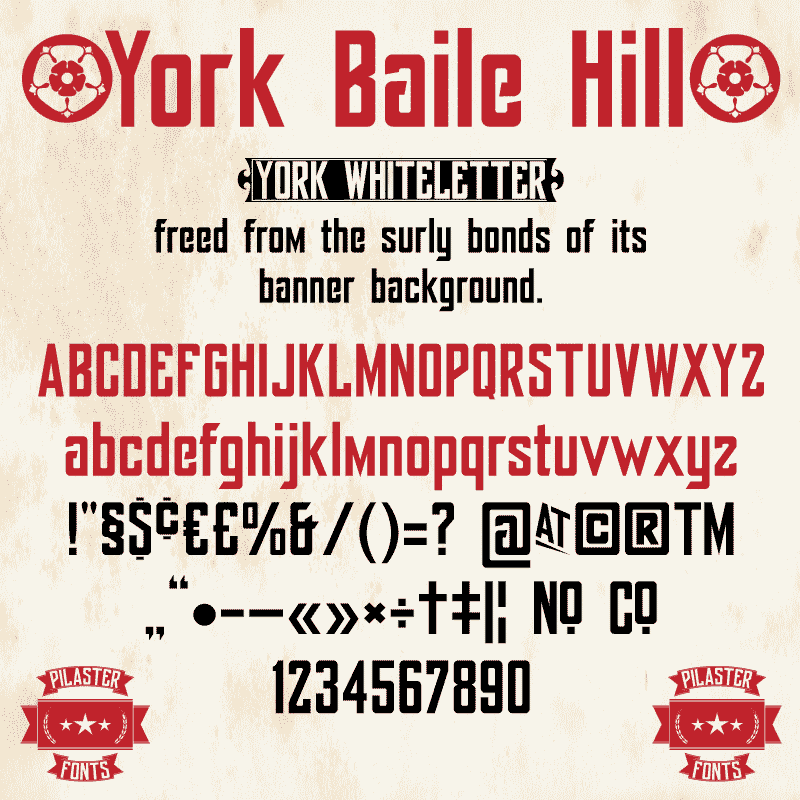
Font name: | York Baile Hill |
Author: | Pilaster Davy |
Note by Pilaster Davy | |
York Baile Hill is the surprisingly popular York Whiteletter font, freed from the surly bonds of its banner background. With the addition of lowercase and extended language support, York Baile Hill is a versatile display face that hasn’t forgotten its wood type origins. York Baile Hill is free for personal and not for profit use, but a donation is required for ANY commercial use. A donation, of any size grants licence to use York Baile Hill for commercial purposes. Pil |